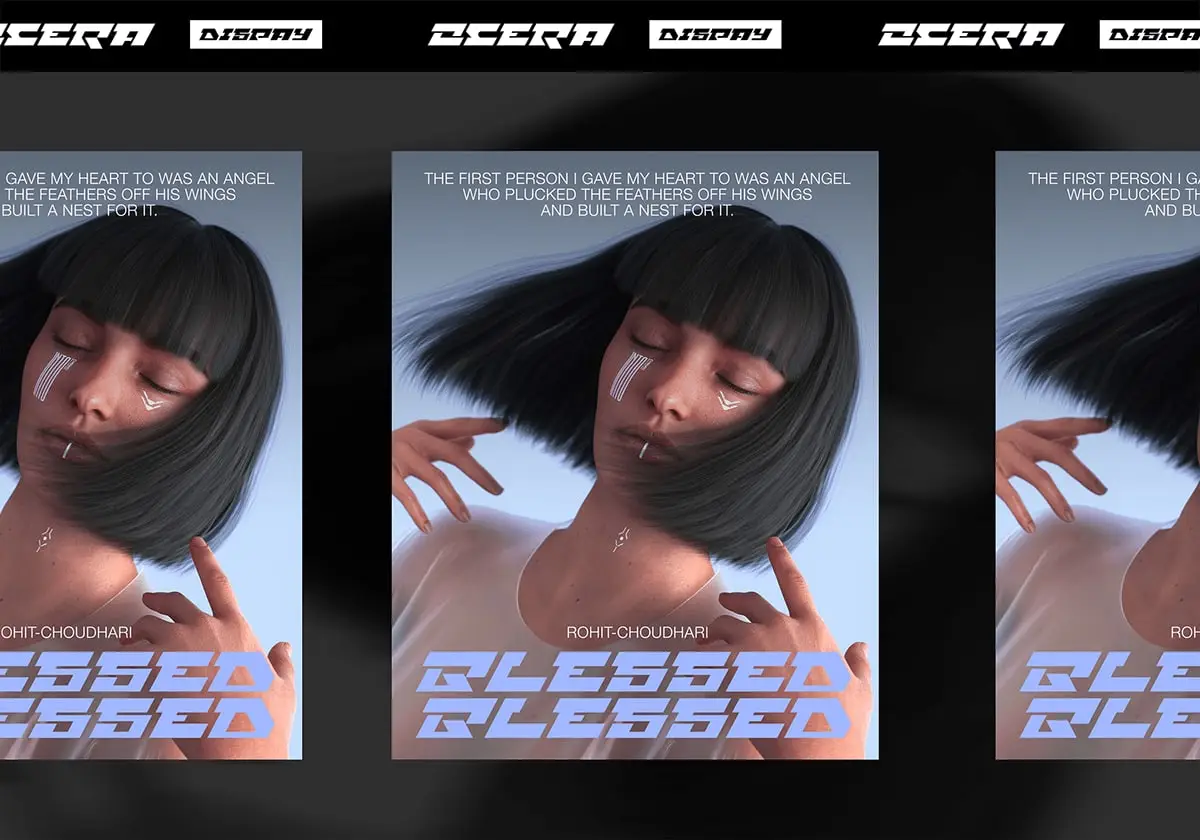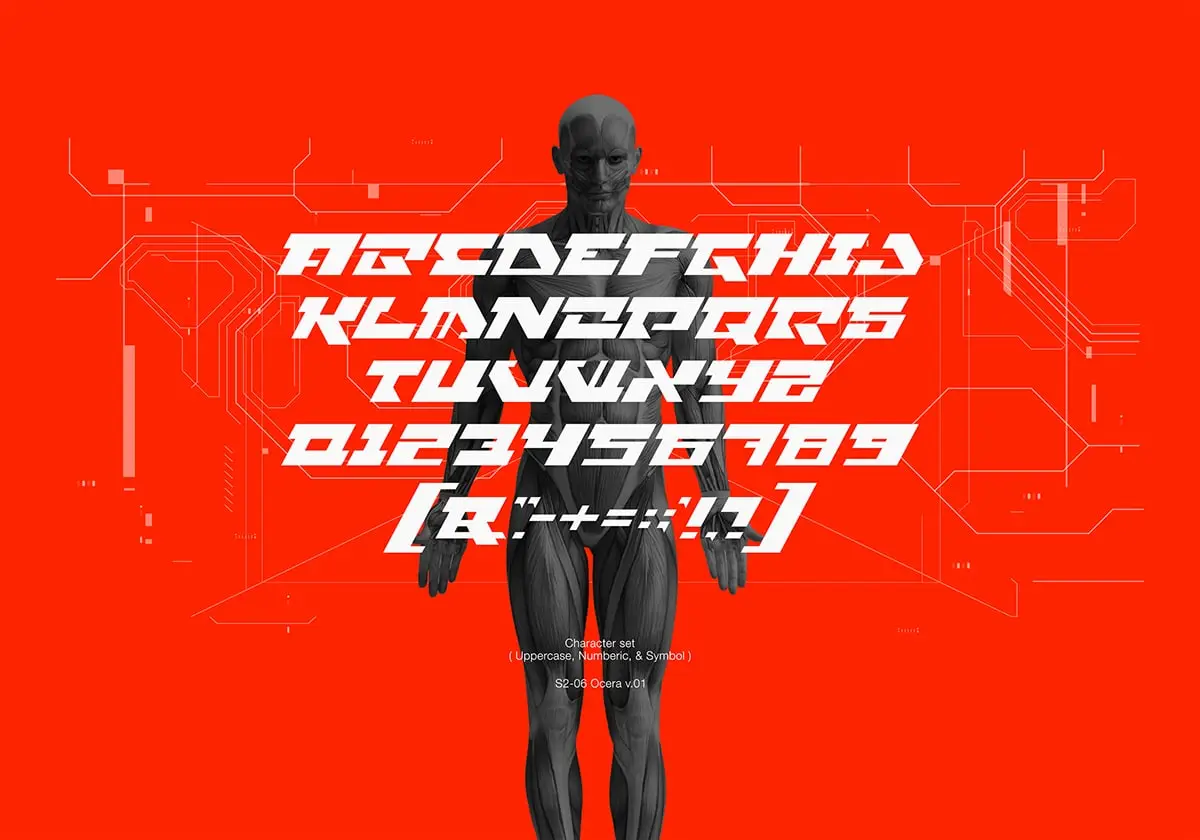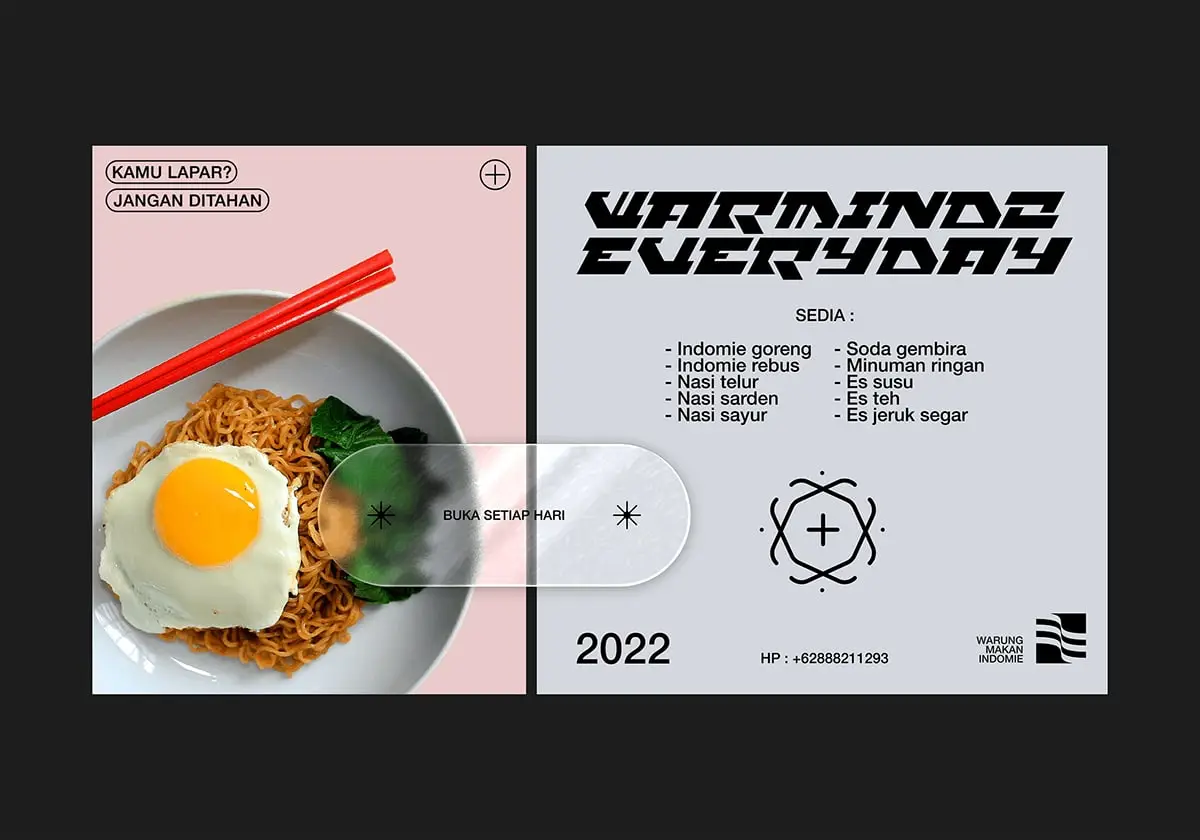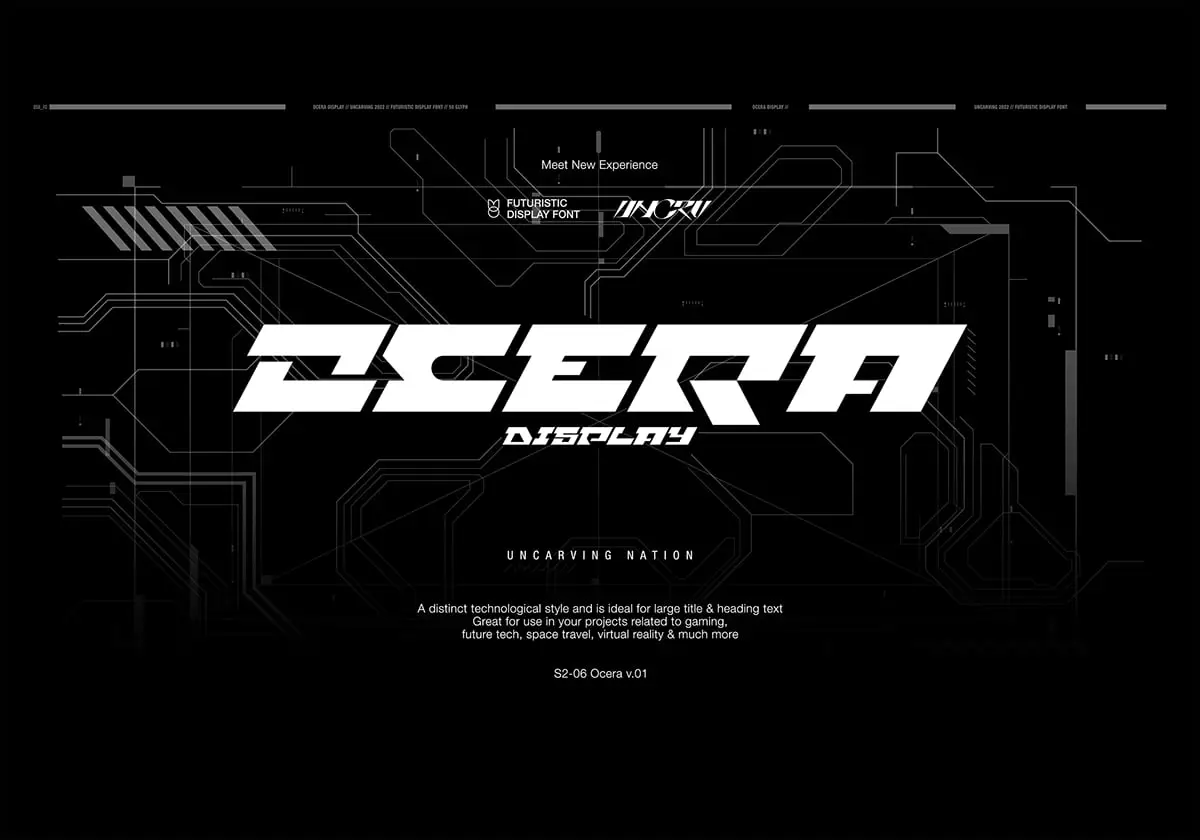
Ocera Font
Introducing the Ocera Font, a versatile typeface designed for modern branding and digital applications. With its clean lines and elegant curves, Ocera is perfect for creating striking logos, eye-catching headlines, and engaging user interfaces.
• Ideal for branding projects, logos, and promotional materials.
• Use in web design for a polished and professional look.
• Great for print applications, including business cards and brochures.